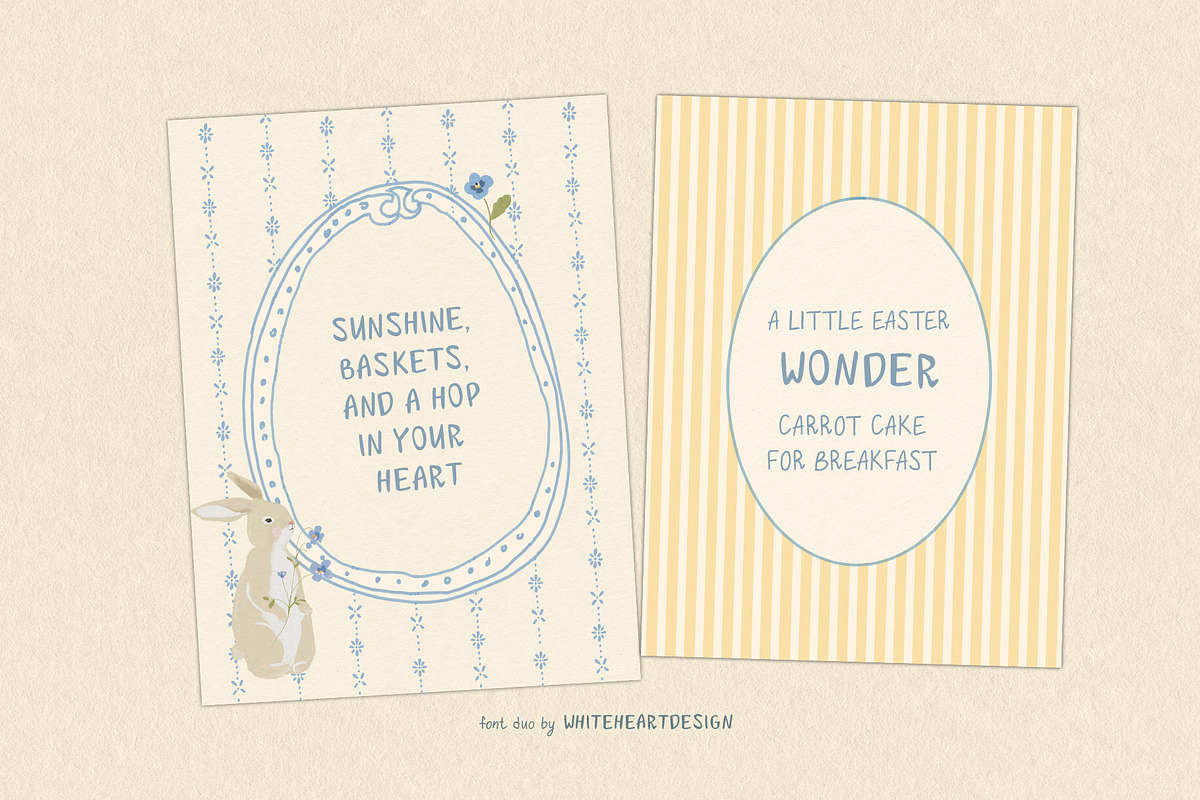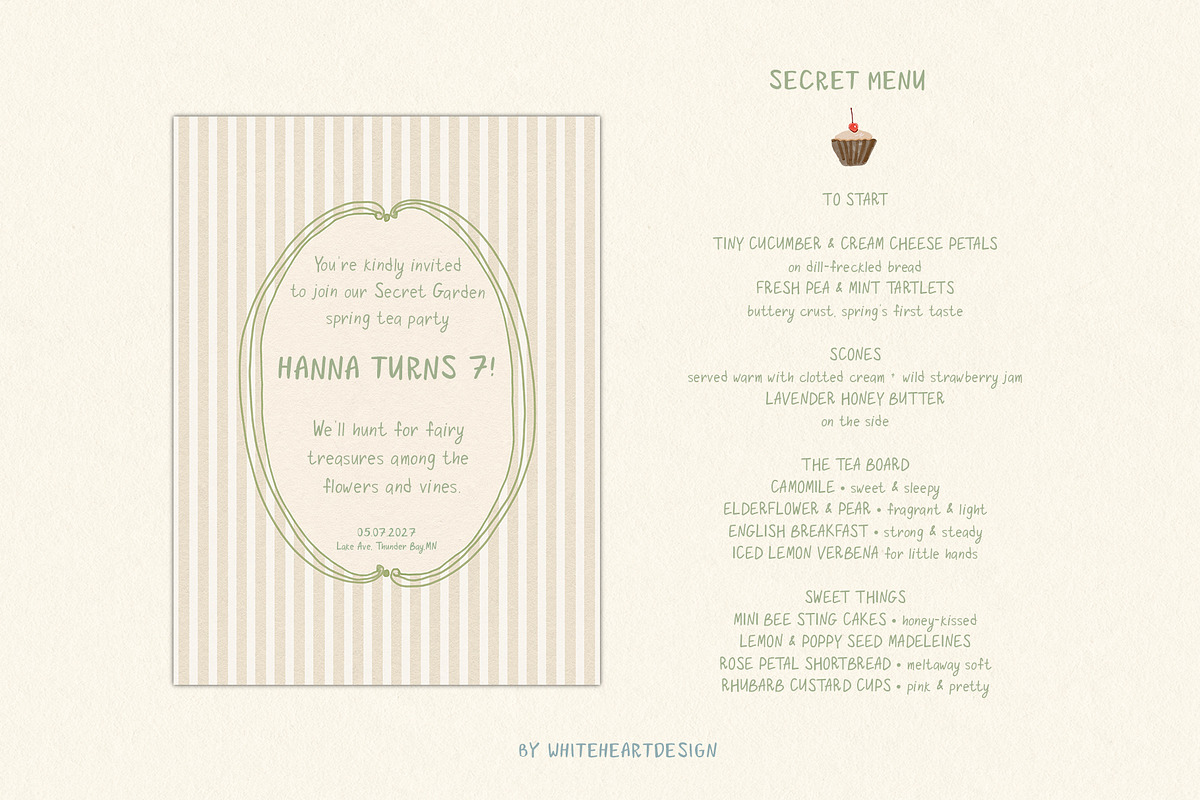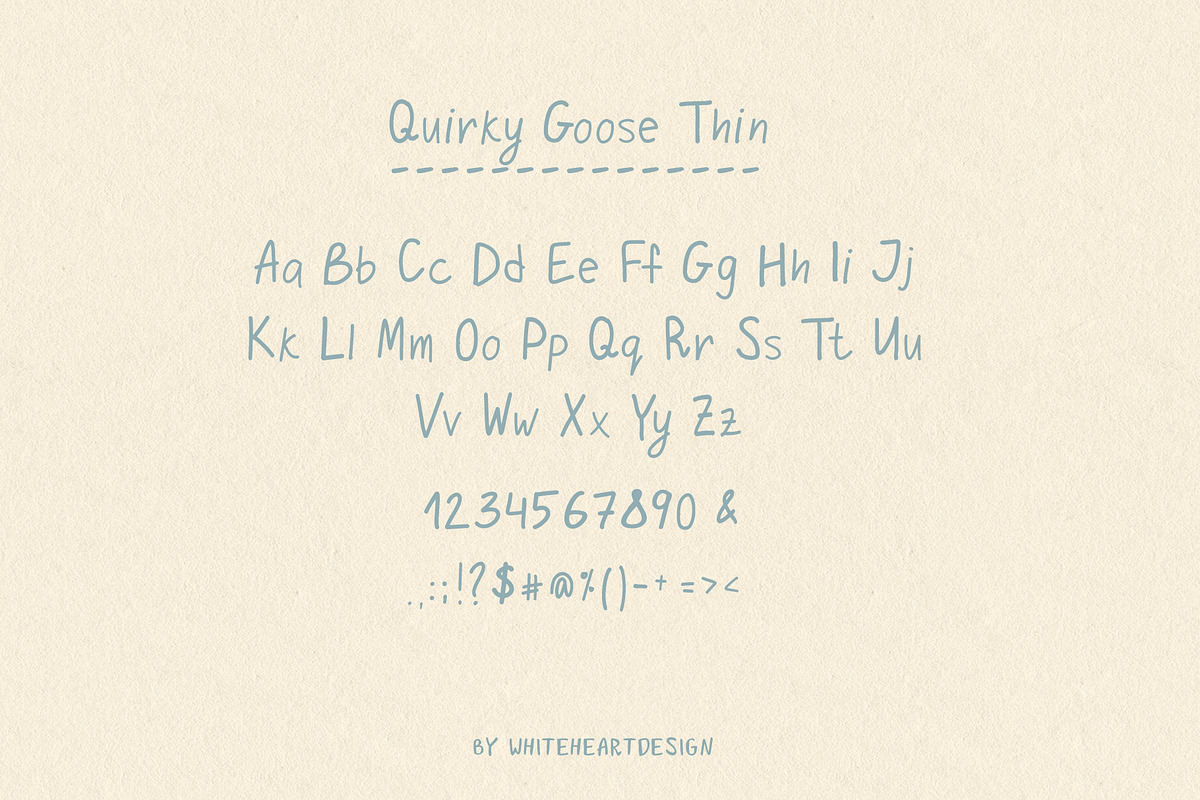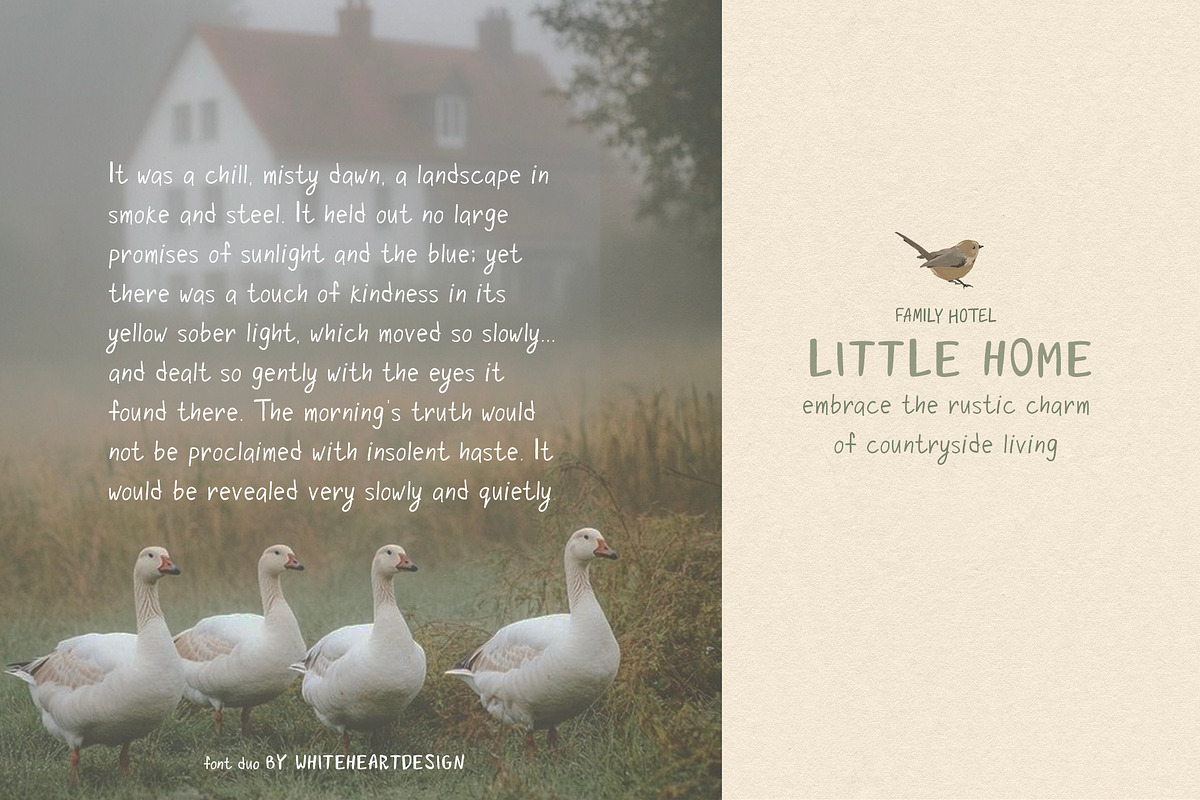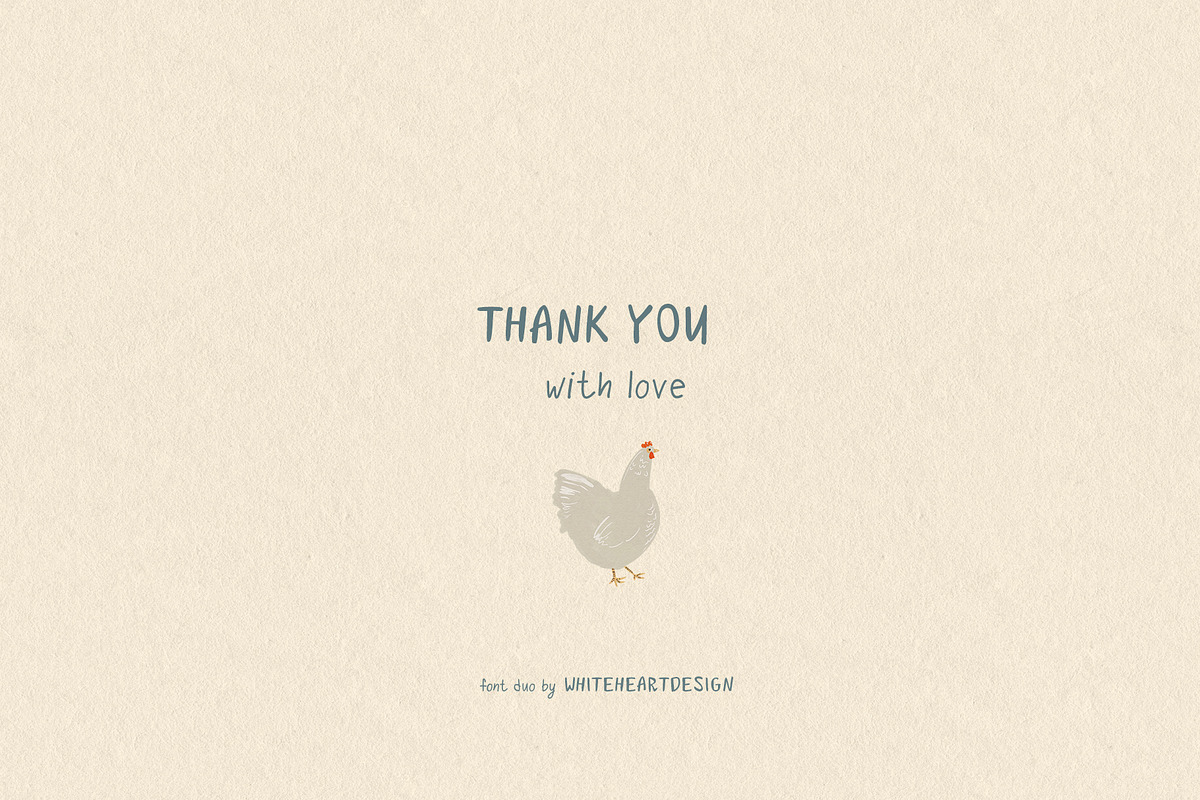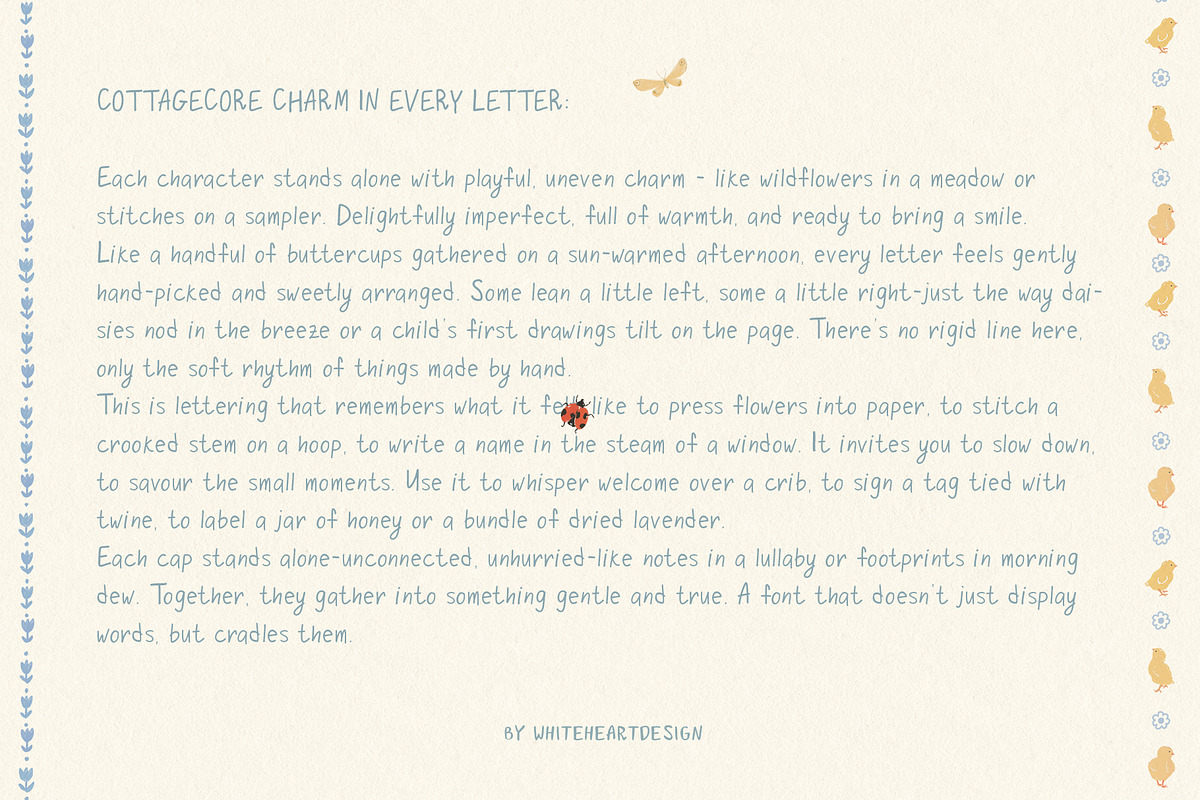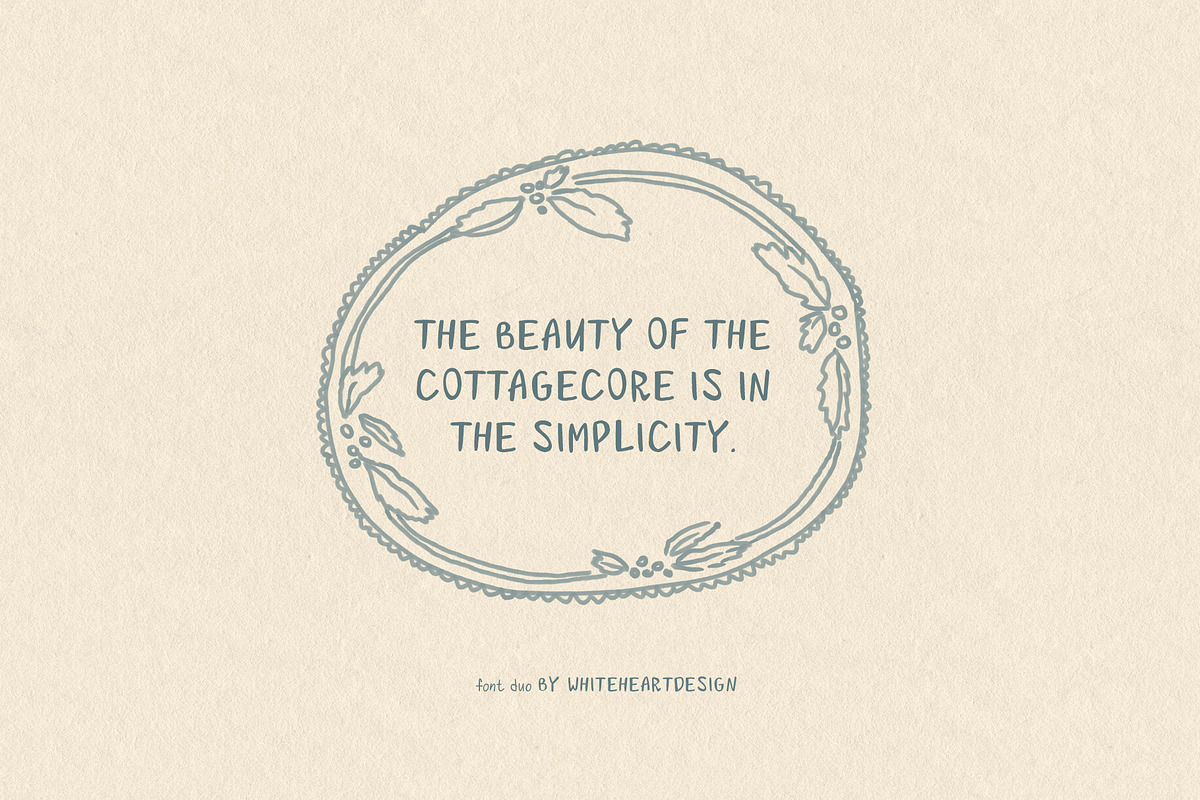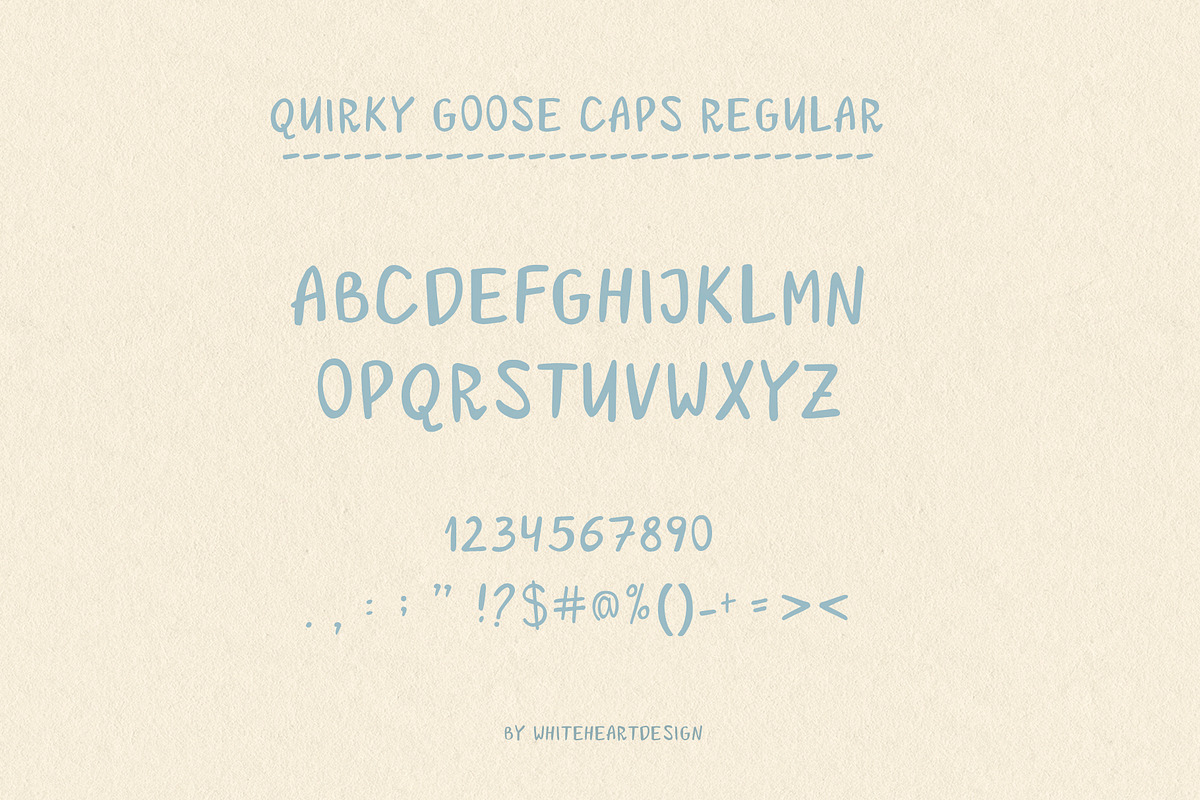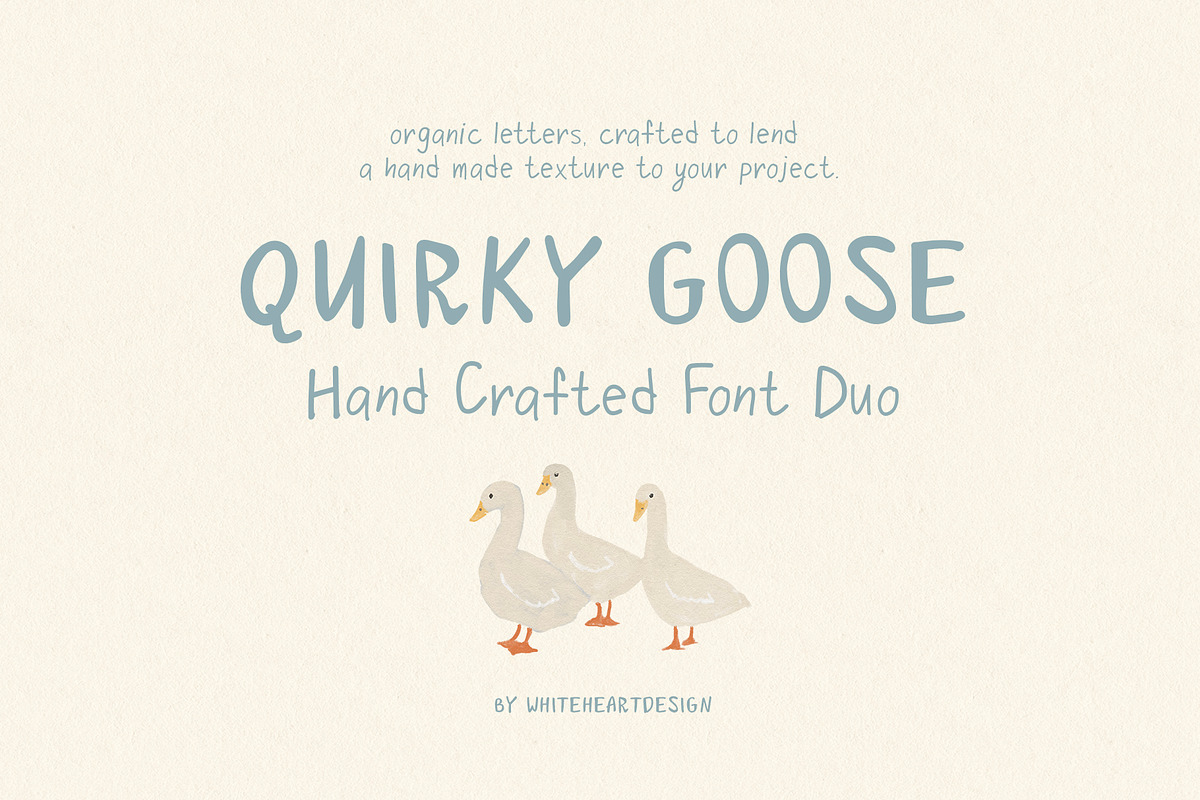
Quirky Goose Quirky Font Duo
Quirky Goose Font Duo - Rustic Handwritten Display & Script Fonts for Whimsy Branding, Packaging & Logos Description: Meet Quirky Goose-a charming font duo built for designers who love personality with every letter. This set includes two complementary hand-drawn fonts: Quirky Goose Thick Caps and Quirky Goose Thin. Quirky Goose Thick delivers bold, rustic uppercase letters with a playful, organic feel-perfect for making a statement. Paired with Quirky Goose Thin, a delicate all-lowercase script with uneven baselines and whimsical charm, this duo creates instant visual contrast and vintage authenticity.
Whether you're designing farmhouse signage, children's book covers, craft packaging, or eco-branding, Quirky Goose adds that imperfect, human touch your project needs.
- Logo & branding design
- Product packaging & labels
- Social media graphics
- Wedding invitations & stationery
- Cafe menus & chalkboard style layouts
- Editorial & kids' book design